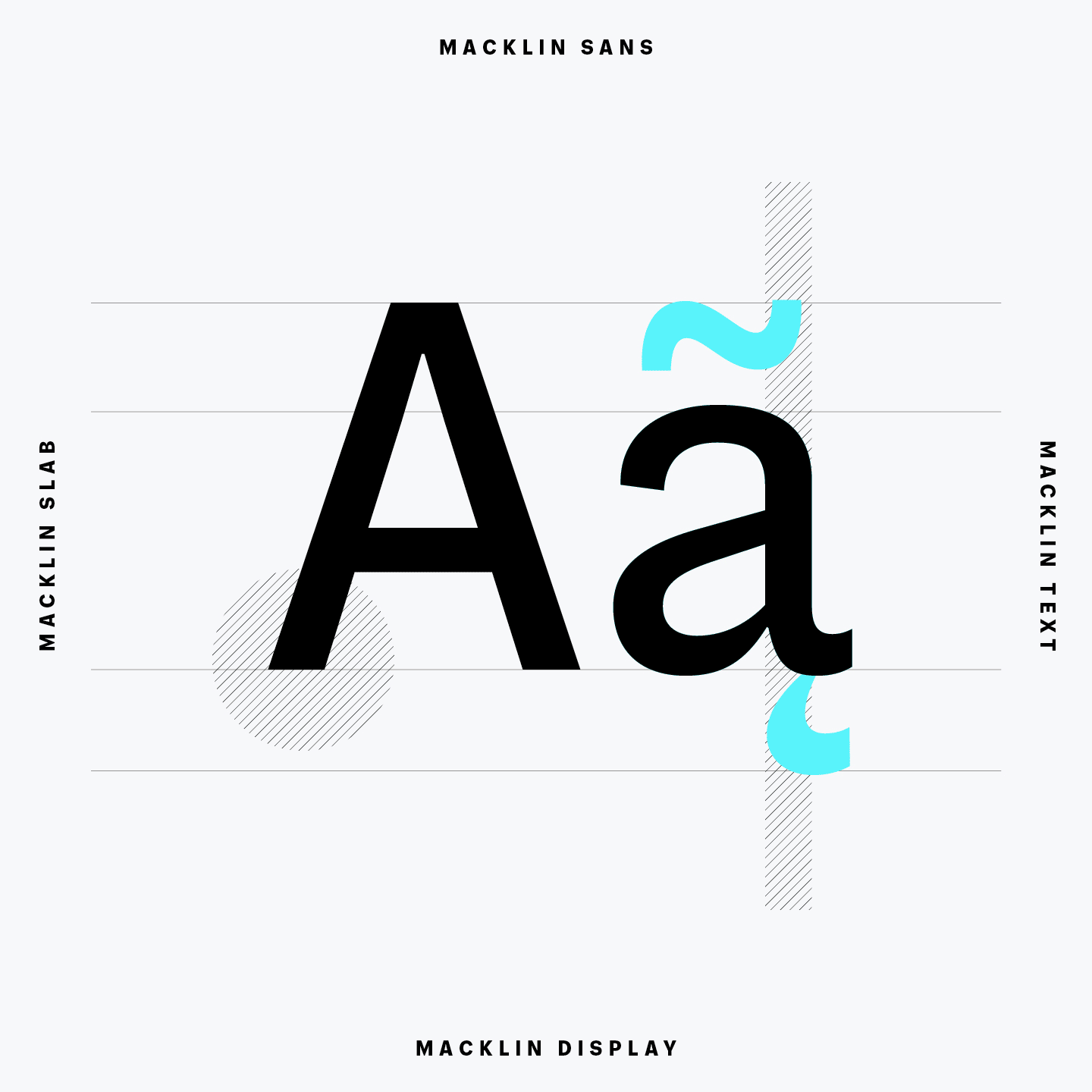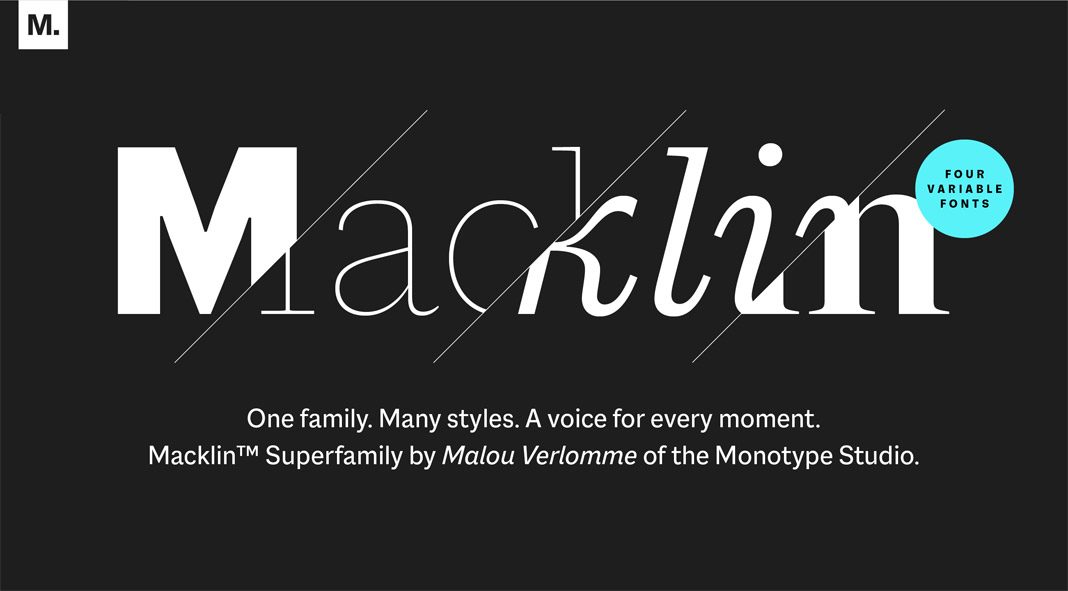
Macklin, a revolutionary new typeface superfamily built for today’s needs in graphic design.
Designed by the award-winning typeface designer Malou Verlomme for the Monotype Studio, the Macklin font family is inspired by the time when type moved beyond books and was used in eye-catching street posters or advertisements.
Consisting of four subfamilies, Macklin is an extremely versatile typeface superfamily including sans, slab, text, and display styles. Equipped with weights ranging from hairline to black, the superfamily comprises 54 styles in total. Macklin’s sharp and elegant letter shapes are well suited for today’s needs in graphic design such as branding, editorial publications, or packaging design. Learn more below or click on the following link for further information.
Despite the fact that the family was inspired by the work of 19th-century British typographer Vicent Figgins as well as good old print design and typographic trends from this period of time, Macklin is not a historical typeface. Type designer Malou Verlomme explains, “When I settled on the current form of Macklin, I focused on the needs of today’s designer: A sans for everyday needs; a sturdy slab that stands out; a text for longer reading; and a display for large, crisp headings.”